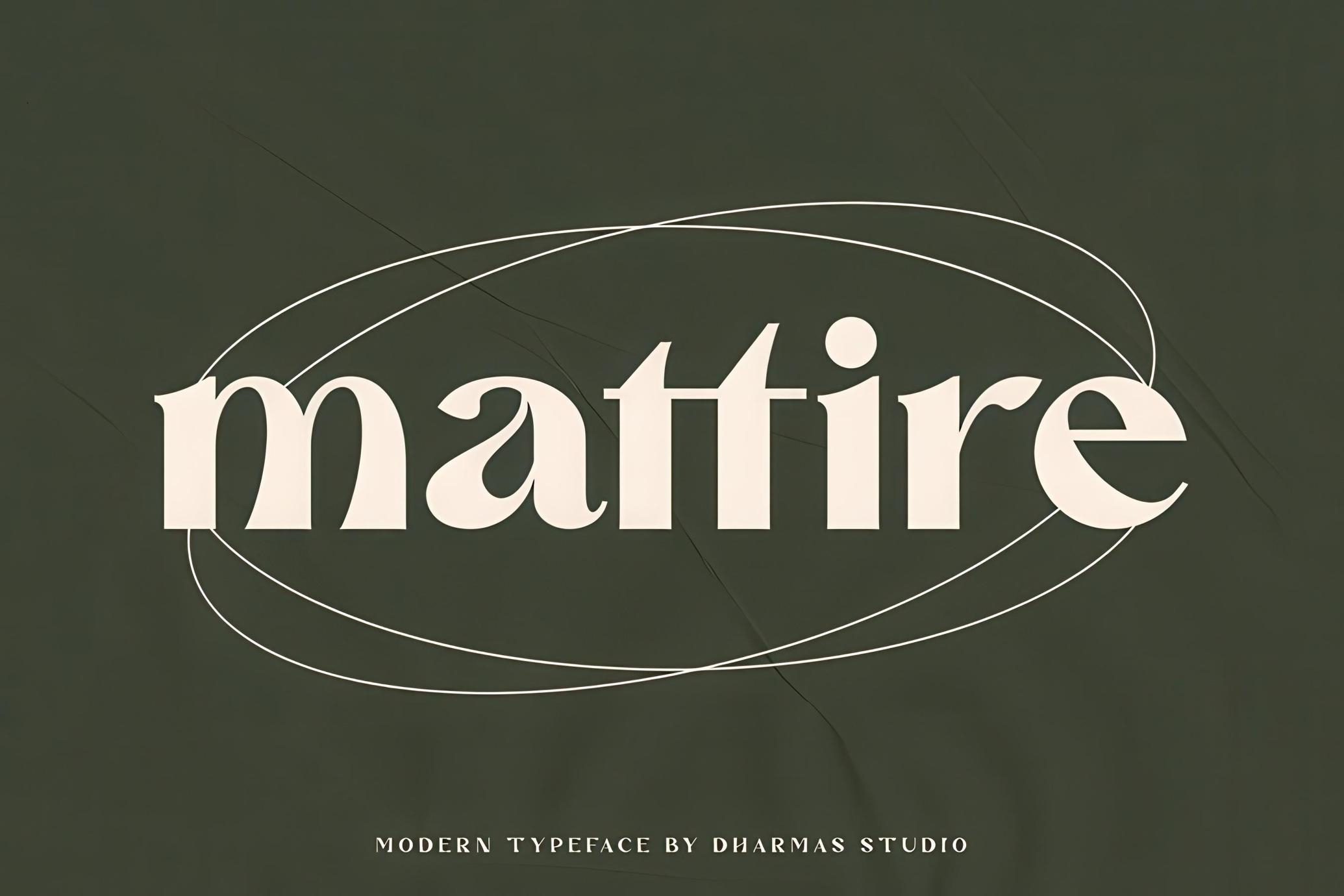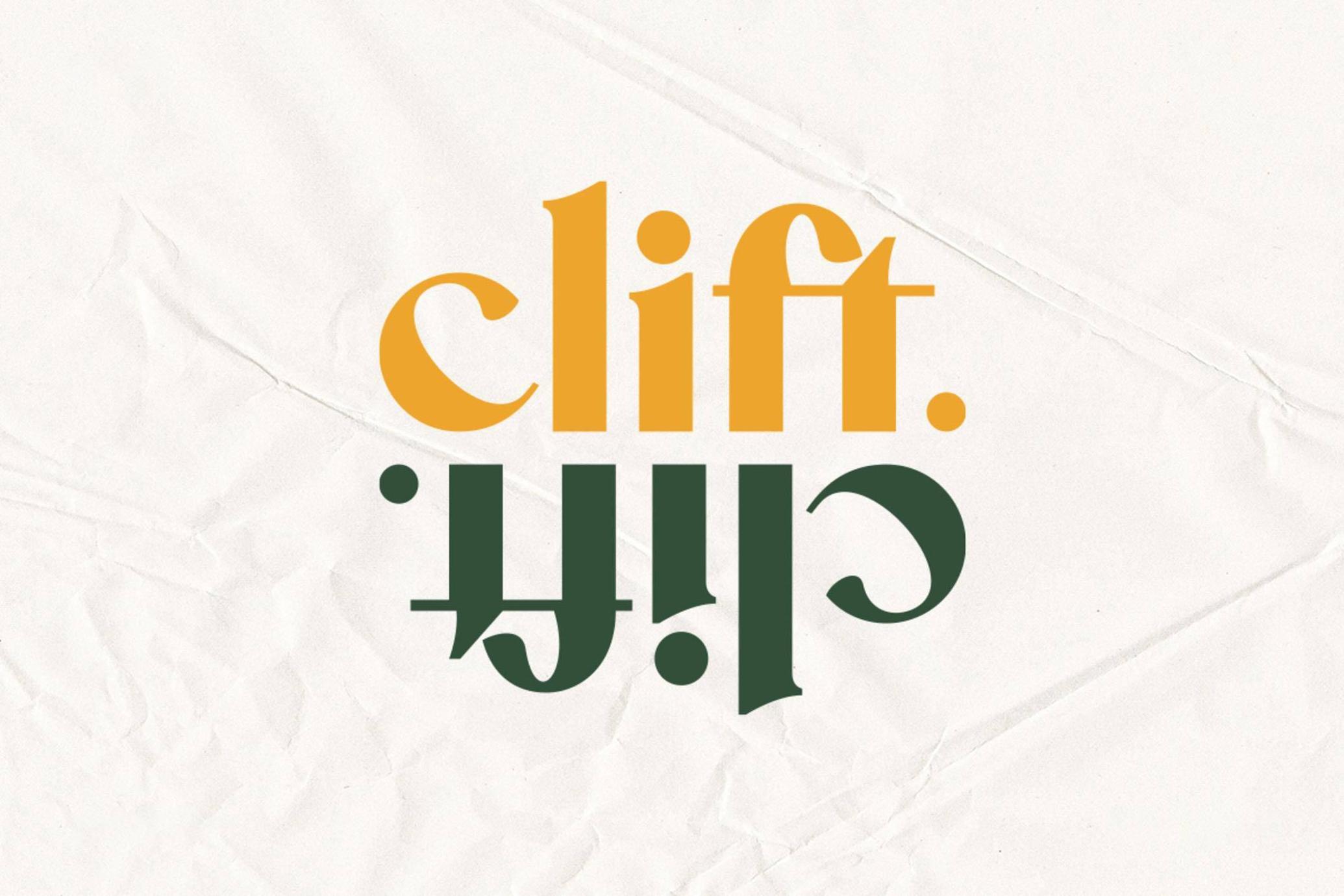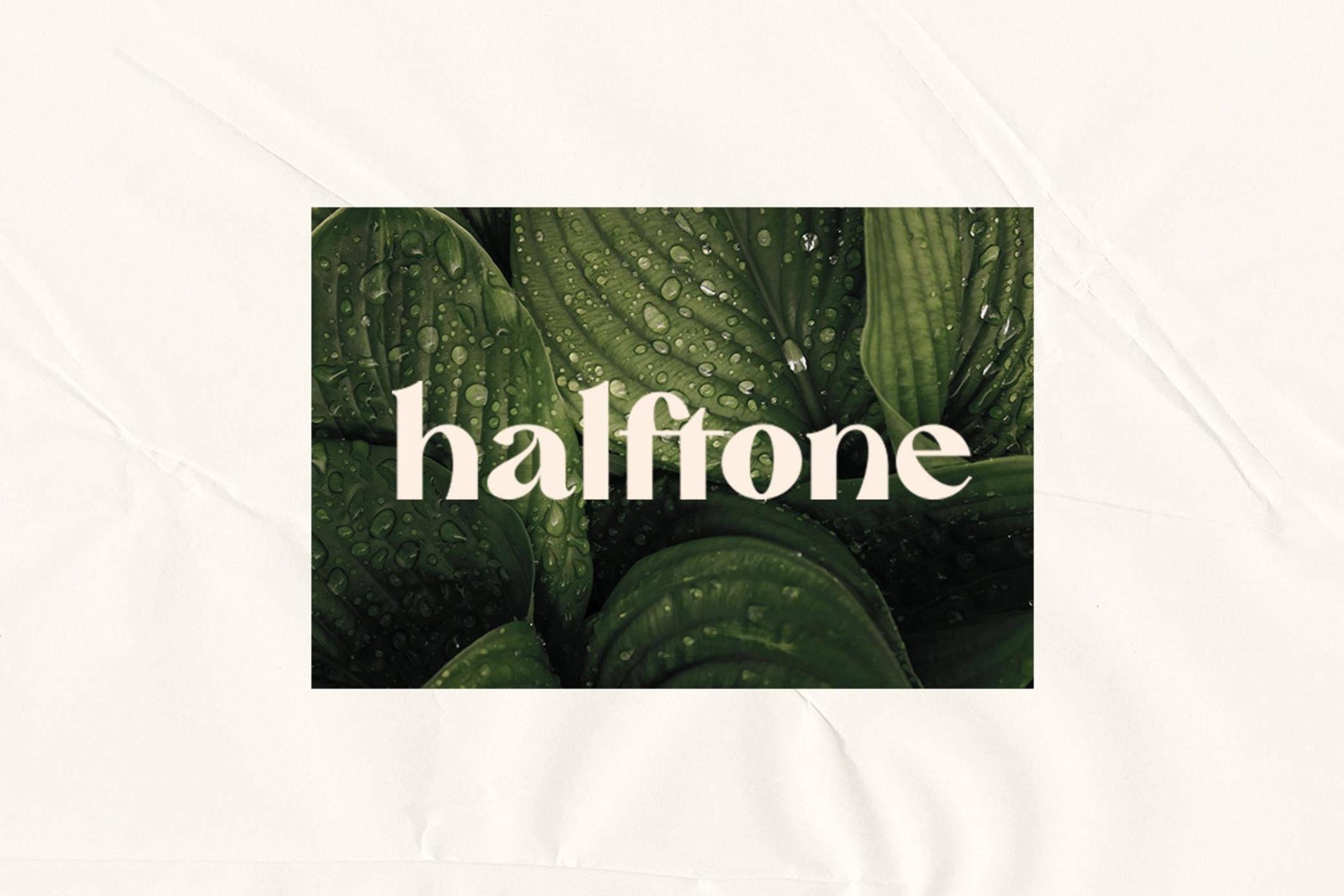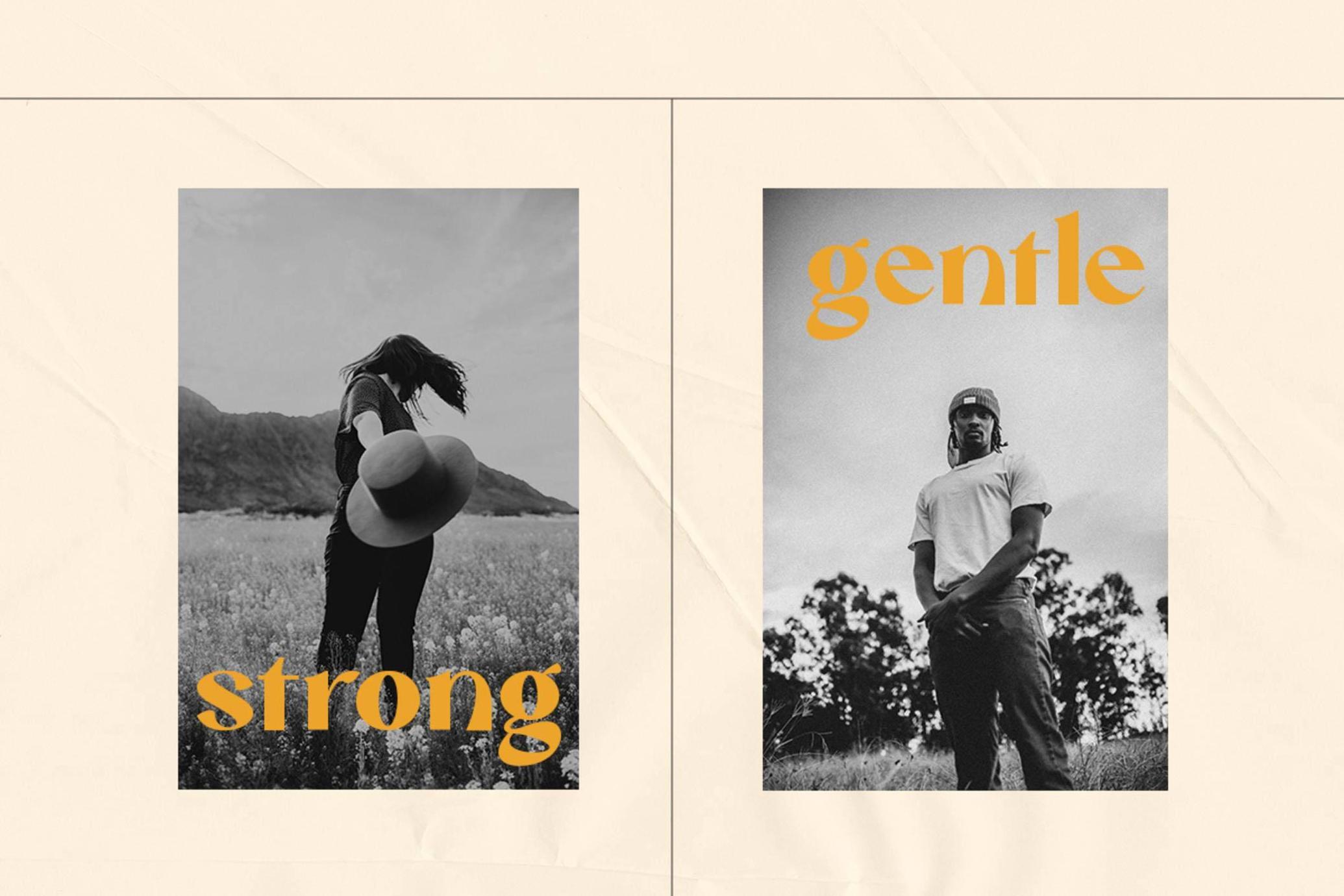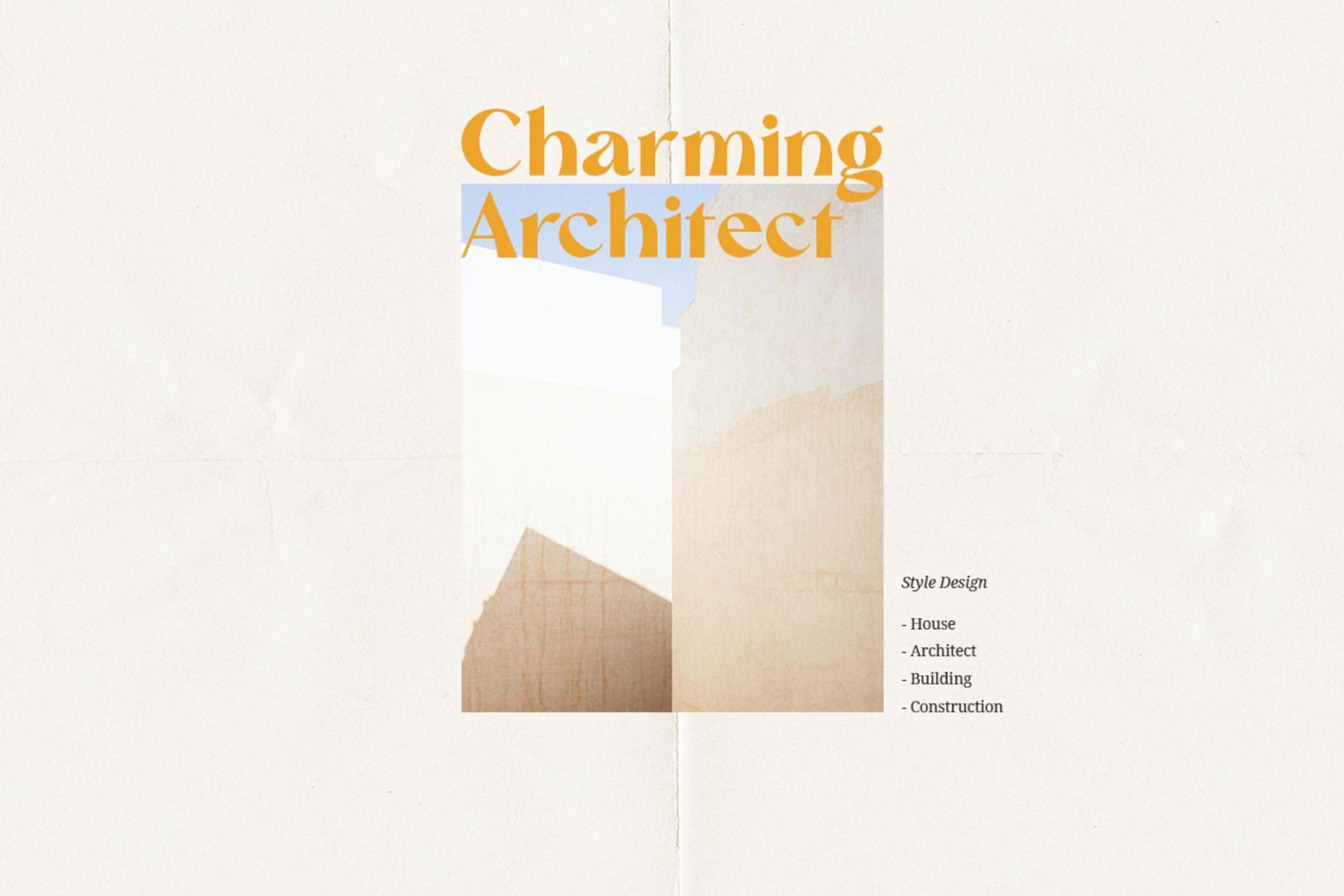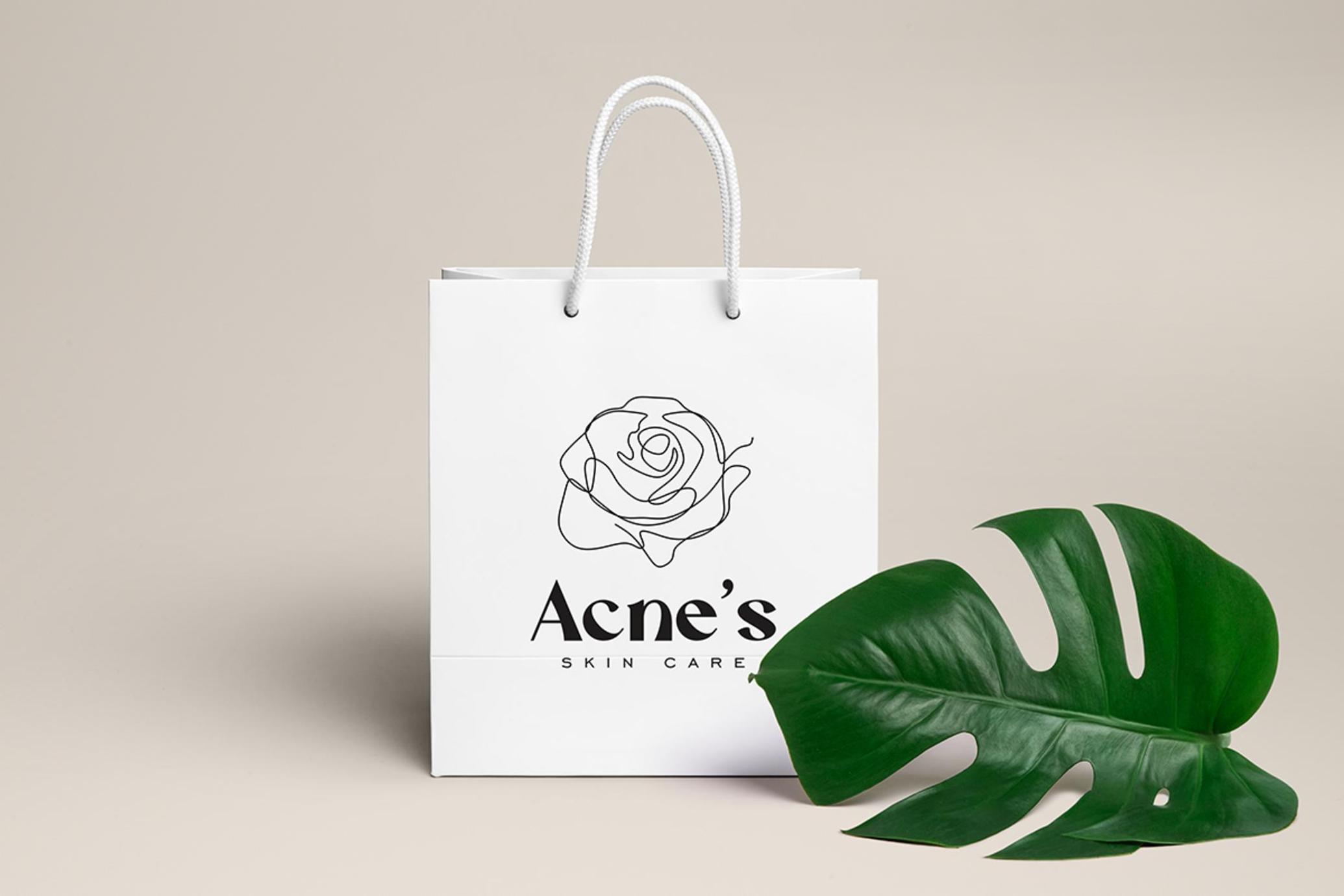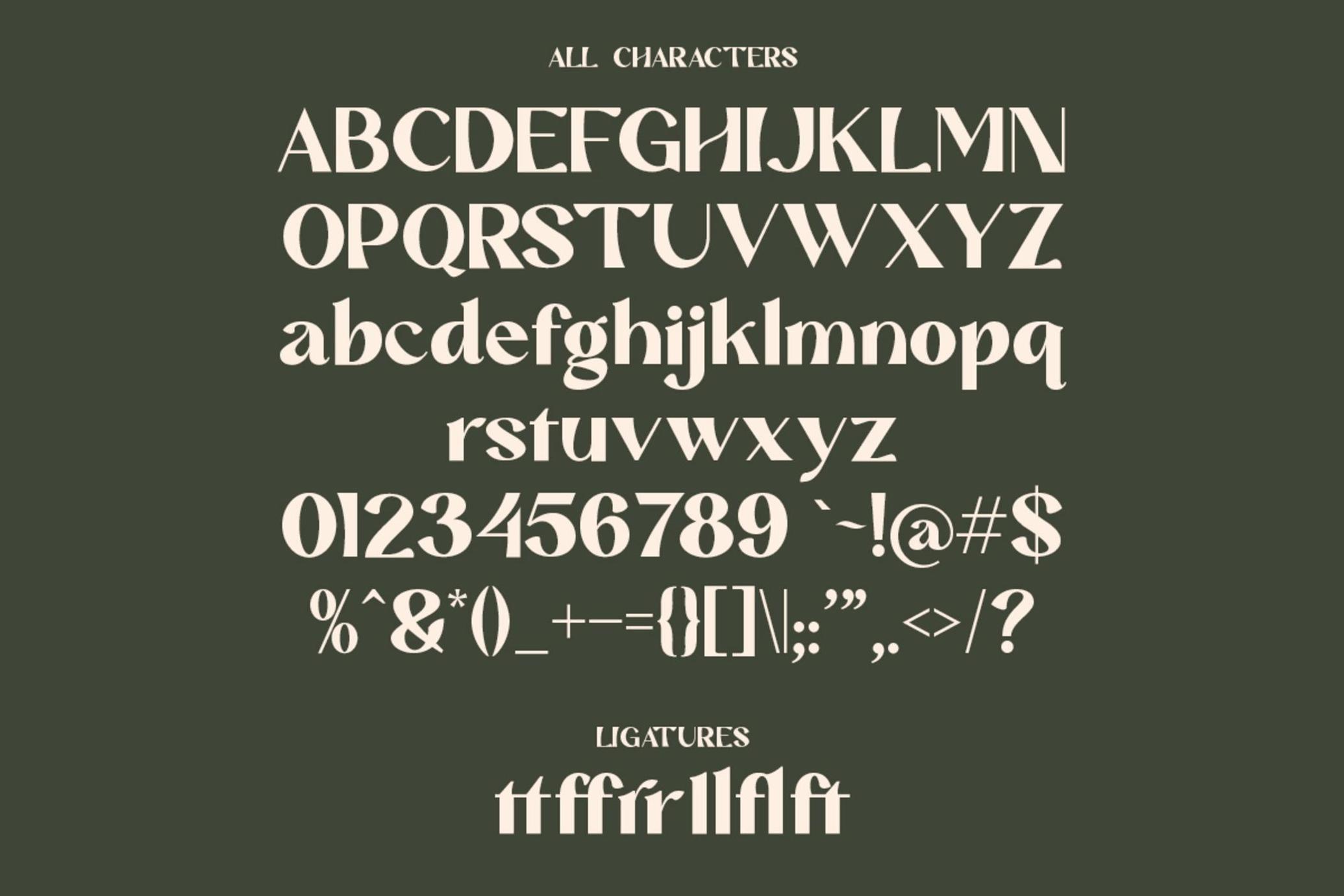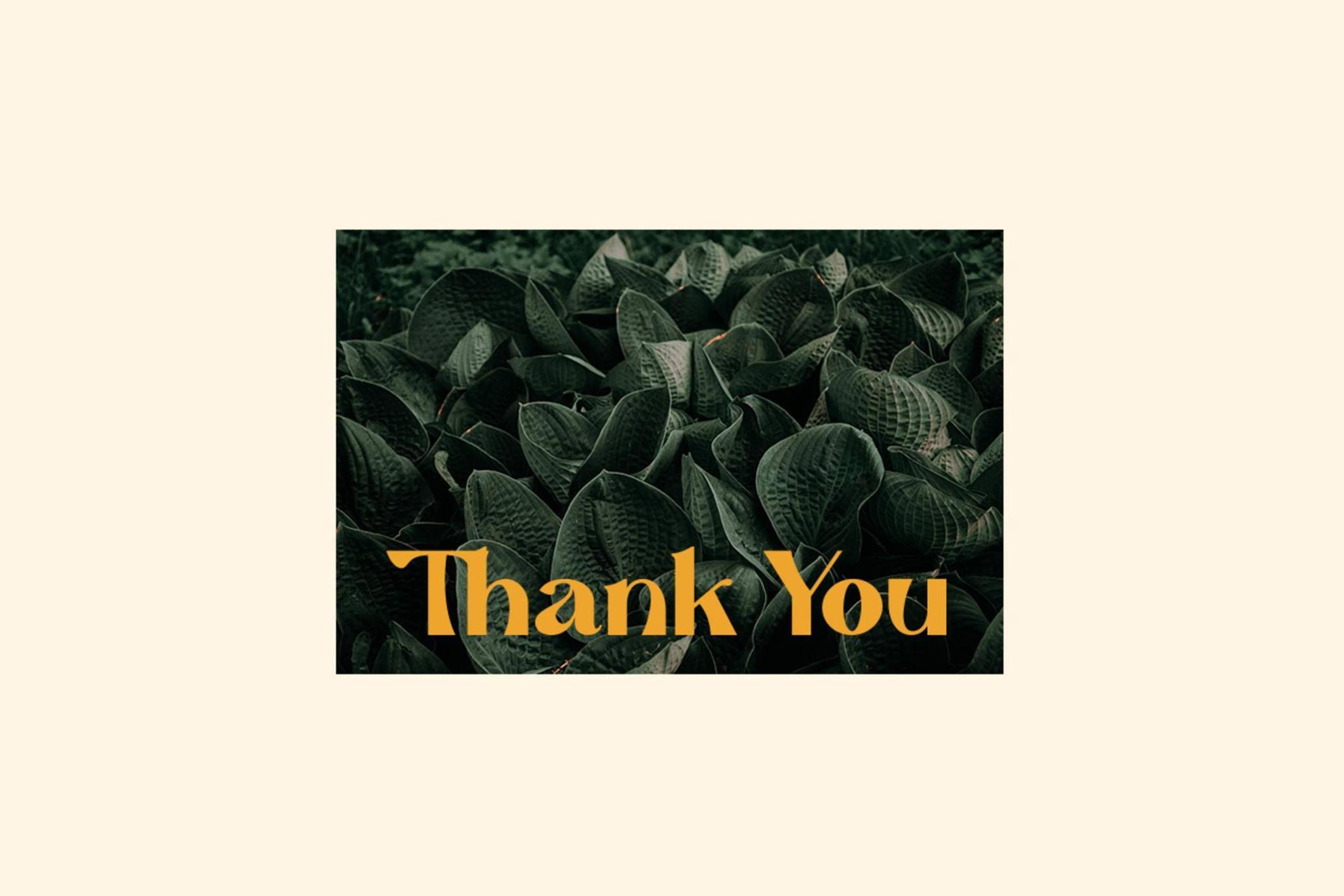
Mattire - Modern Serif Typeface
Mattire
Mattire is a stylish font that is both classic and minimal. A bold, high contrast font that is perfect for header magazine, web, feminine logo marks & editorial design. It's a mix of classic serif and a futuristic sans serif.
- Letters, numbers, punctuation, multilingual support, accent and ligature
Mattire fits perfectly into those modern moodboards. It come with a unique lower and uppercase plus numbers, punctuation & multilingual letters. If there is a problem feel free to message or contact at: dharmasahestya@gmail.com